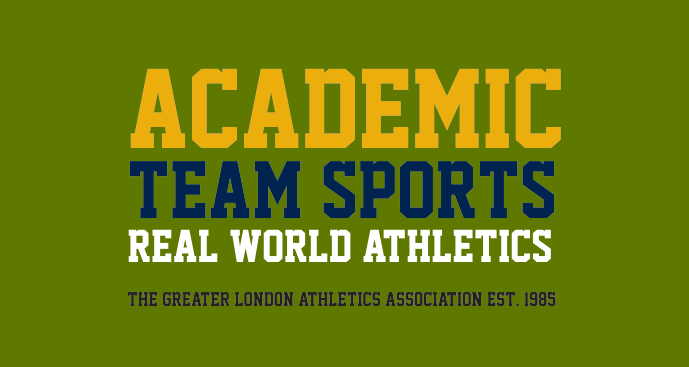
A font inspired by some college and university t-shirts. Ideal for creating logos and emblems. The upper and lower case 'S' and 's' are different, the lower case one being more traditional for this style of font. The left and right curly brackets hold alternate glyphs for numbers '2' and '5'. If you find this font useful then please consider a donation to justme54s[at]yahoo.co.uk, any amount will be greatly appreciated. A donation isn't necessary to use this font for personal or non-commercial use. I'll be interested to know how people use it so a picture or artwork sent to justme54s[at]yahoo.co.uk would be nice. If you wish to use this font commercially a donation or license is required, please email for further information. Alternatively, for one time commercial use just send details of usage along with your donation so that a return email can be sent as proof of rights to commercial usage. Usage Agreement You may not host this font anywhere online as it is hosted exclusively at FontSpace.com and Dafont.com. Any links for downloads should be directed to FontSpace or Dafont. You may share the font electronically but the Zip file should remain intact with the font alongside all other files as packaged. You may not sell this font, but are allowed to distribute it freely i.e. in magazines. |